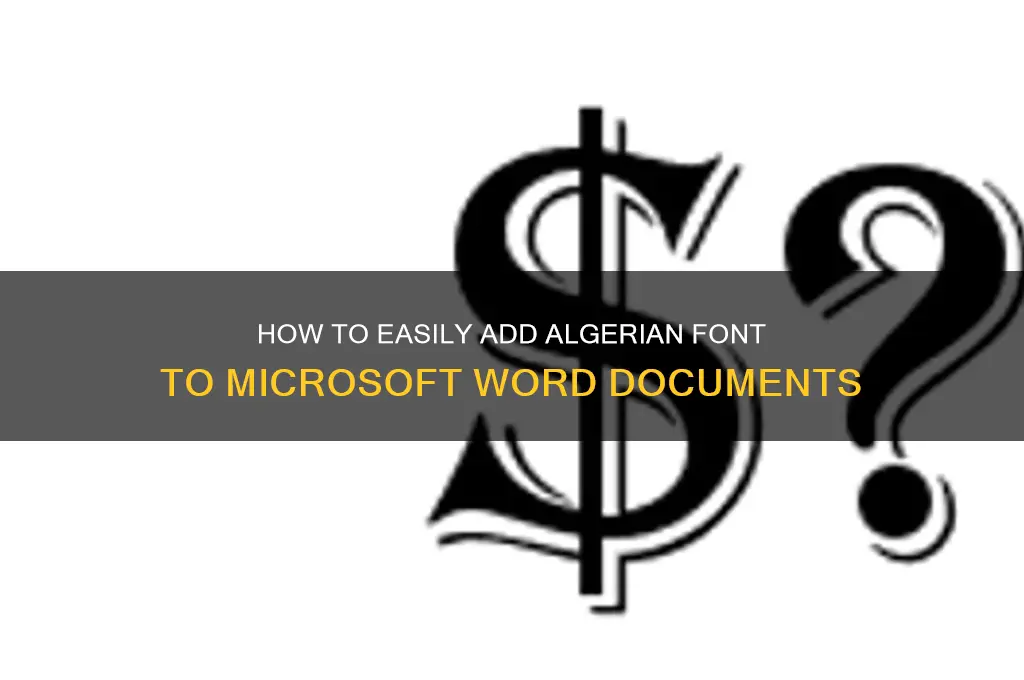
| Characteristics | Values |
|---|---|
| Font Name | Algerian |
| Alternatives | Similar fonts: Broadway, Imprint MT Shadow, or download look-alikes from font websites |
| Usage | Commonly used for titles, headings, and decorative text due to its distinctive, bold style |
The Algerian font, with its distinctive, bold, and slightly slanted characters, is a popular choice for titles, logos, and creative designs. However, it’s not always pre-installed on every system, leaving users to seek it out manually. To integrate Algerian into your Word documents, the first step is to locate and download the font file from a reputable source. This ensures not only authenticity but also safeguards your system from potential malware or corrupted files.
Practical Tips for Installation:
Once downloaded, installing the font is straightforward. On Windows, right-click the font file and select "Install." On macOS, double-click the file and click "Install Font." After installation, restart Word to ensure the font appears in your list of available options. If you encounter issues, try manually adding the font via the Control Panel (Windows) or Font Book (macOS).
By following these steps and precautions, you’ll successfully download and install the Algerian font, ready to elevate your Word documents with its unique style.
Install on Windows: Extract the font file and install it via the Windows Font Settings
To install the Algerian font on your Windows system for use in Word, you first need to locate and download the font file. Typically, this file comes in a compressed format, such as a ZIP folder. Once downloaded, right-click the file and select "Extract All" to unzip its contents. Inside, you’ll find the font file, usually with a `.ttf` (TrueType Font) or `.otf` (OpenType Font) extension. This file is the key to unlocking the Algerian font for your applications, including Microsoft Word.